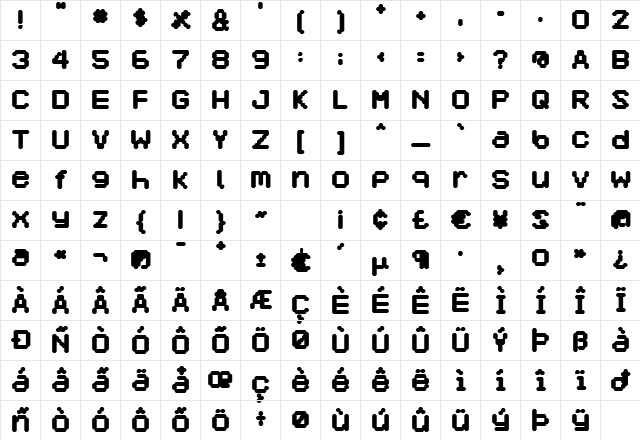
Selector Bold
| Foundry | YouWorkForThem |
| Designer | Michael Cina |
Design Context for Selector Typeface
Selector offers clean, dependable letterforms without strong stylistic allegiance, making it a practical choice for designers who need flexibility. The heavy weight commands attention and anchors typographic hierarchies.